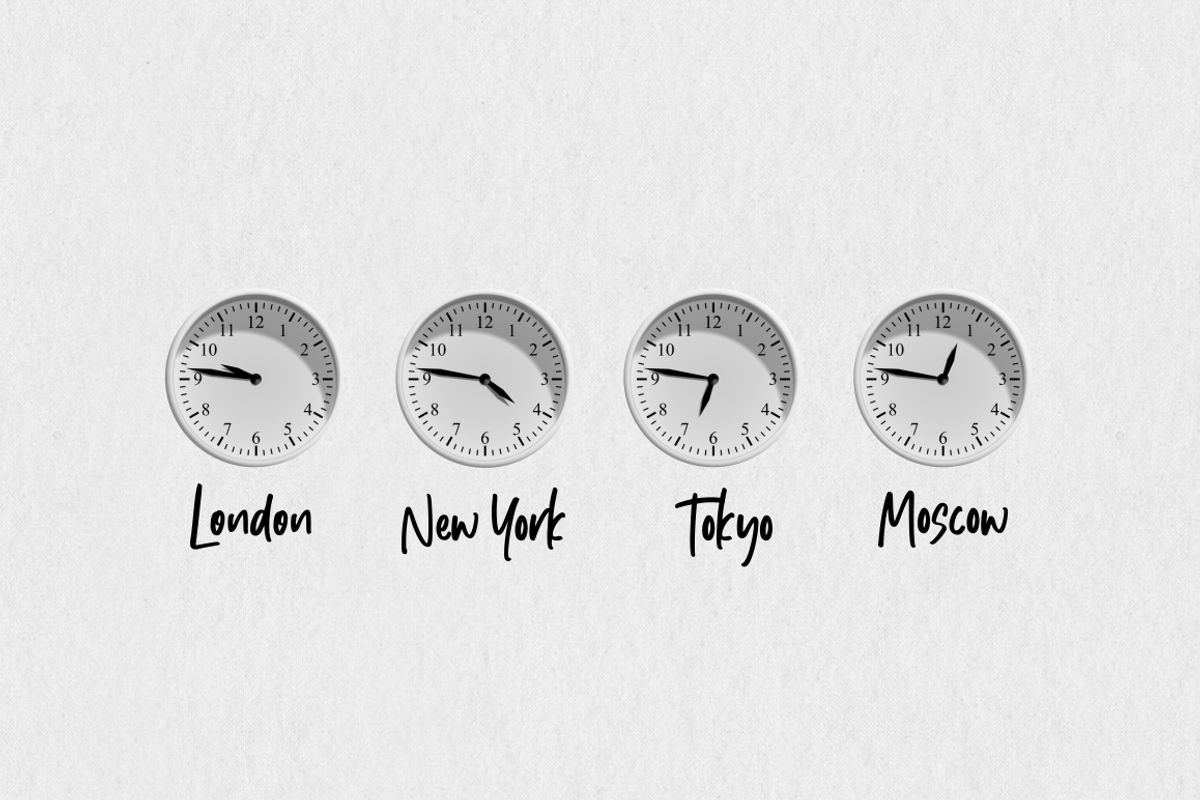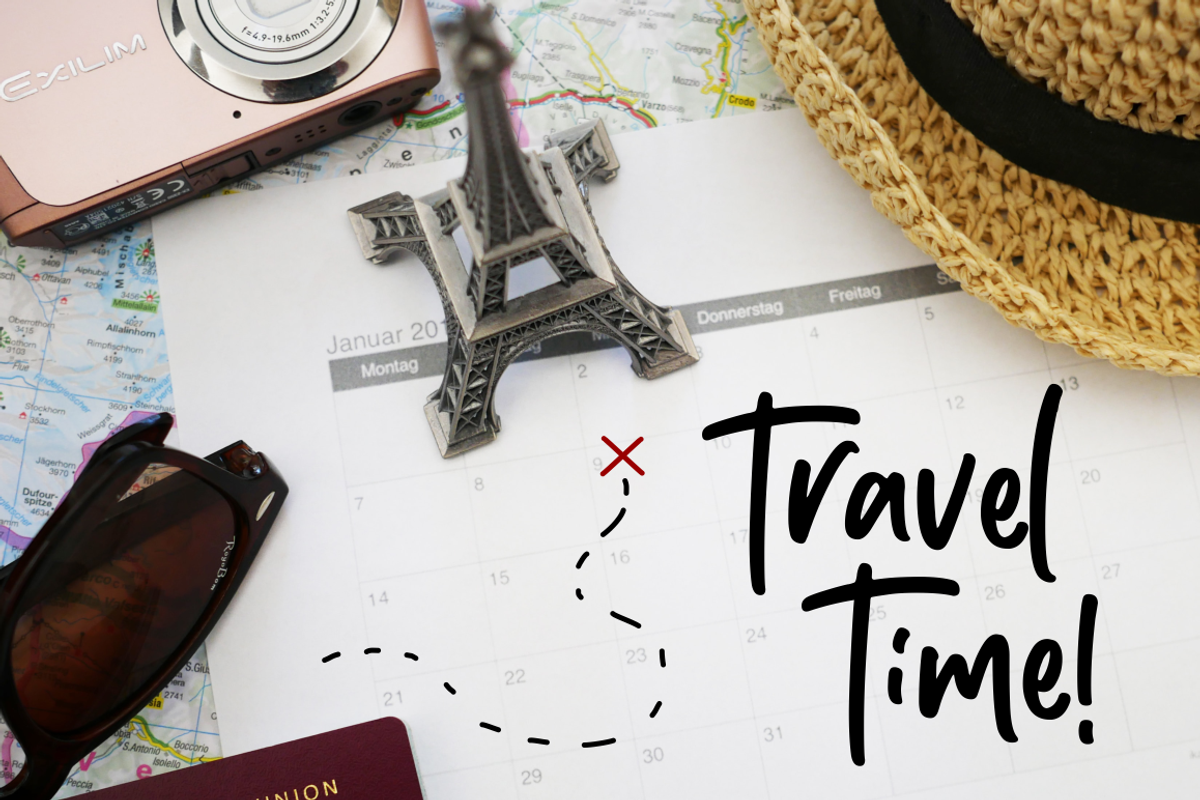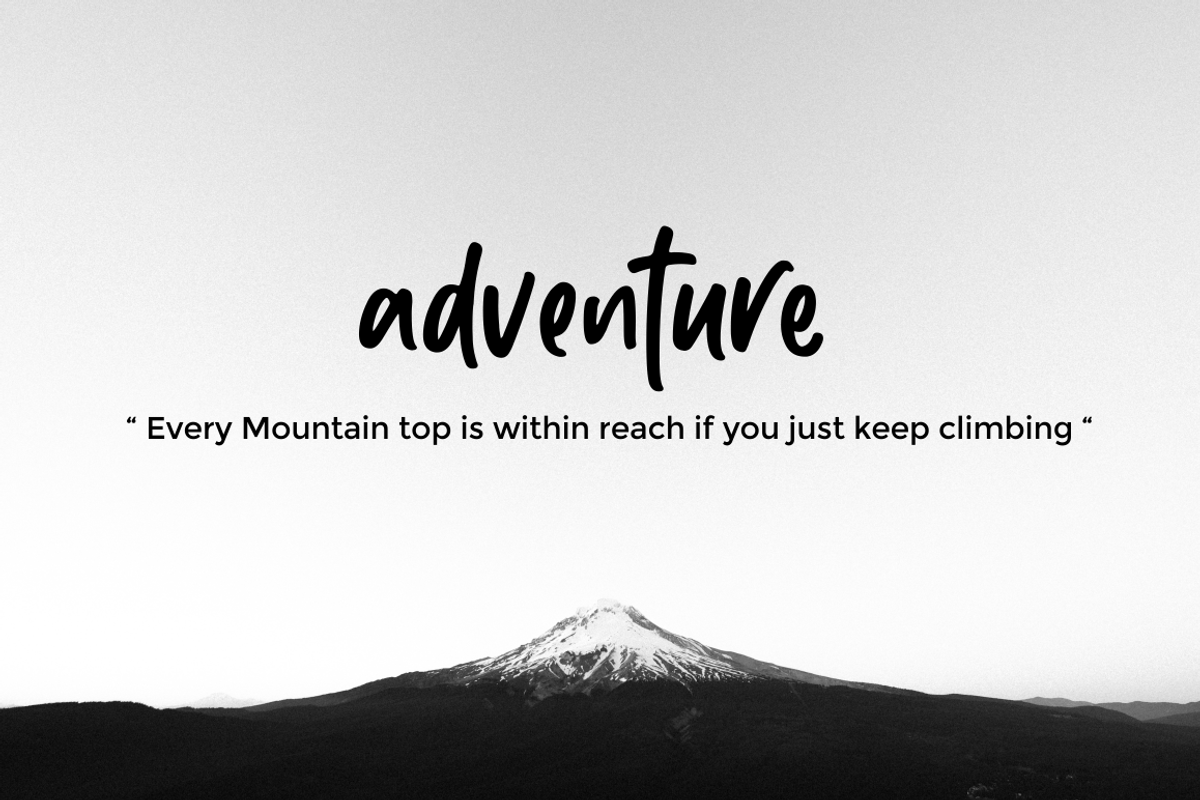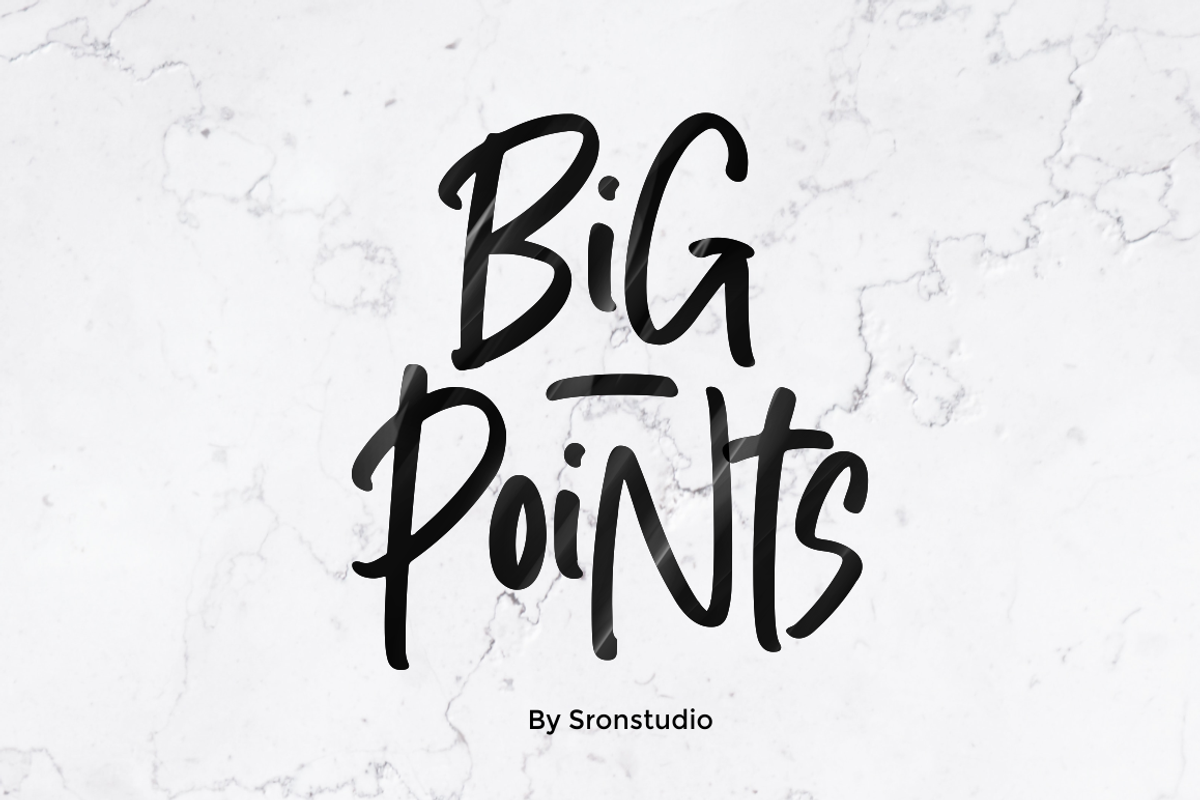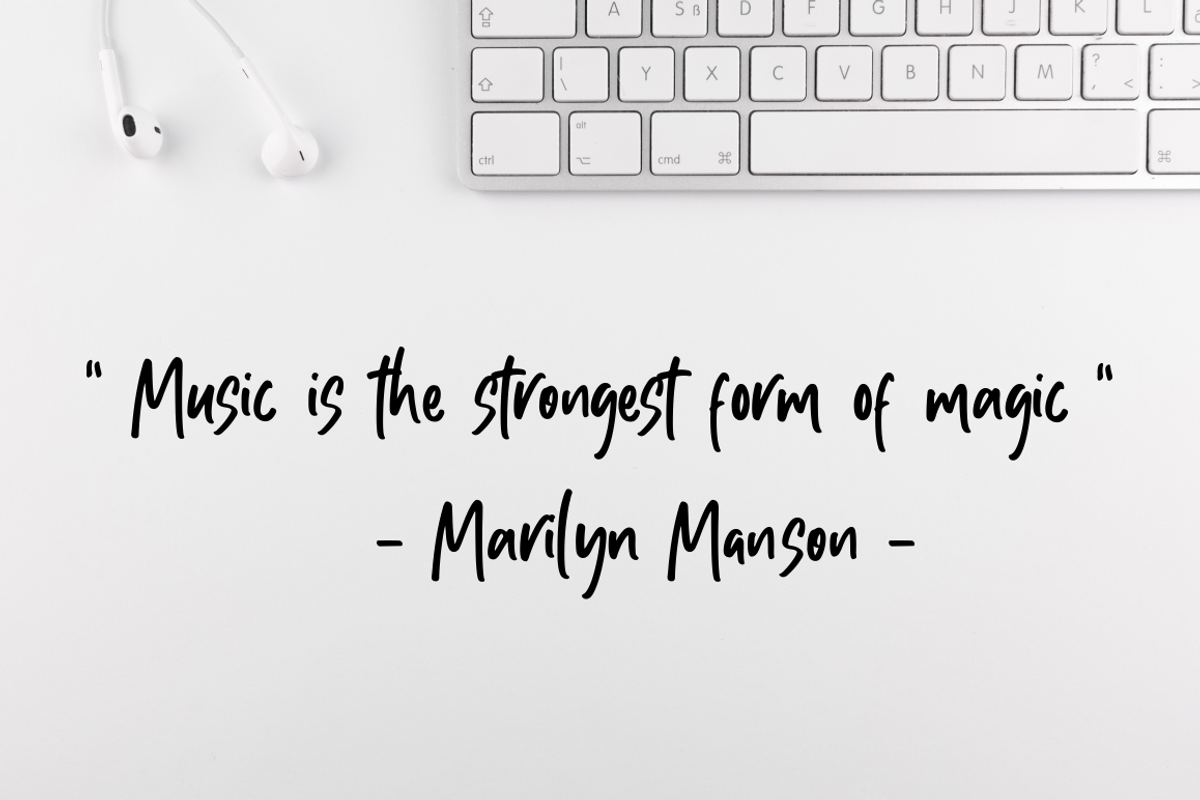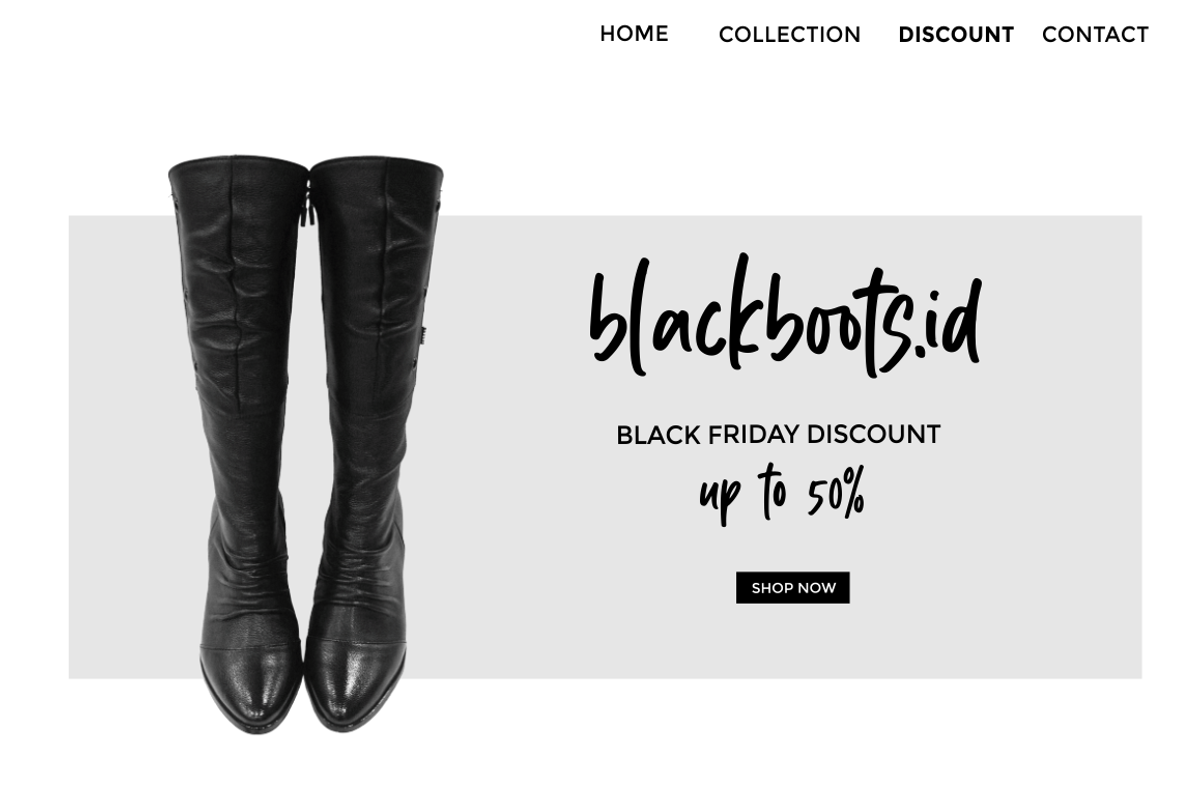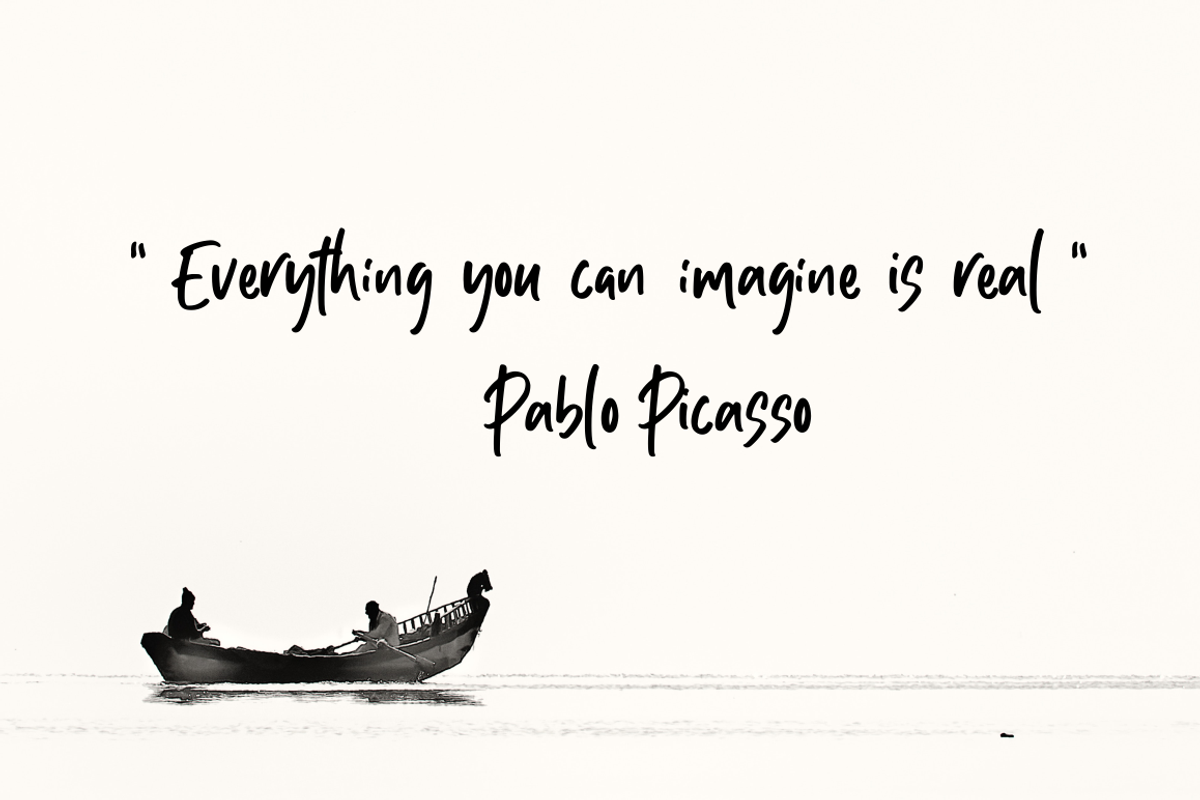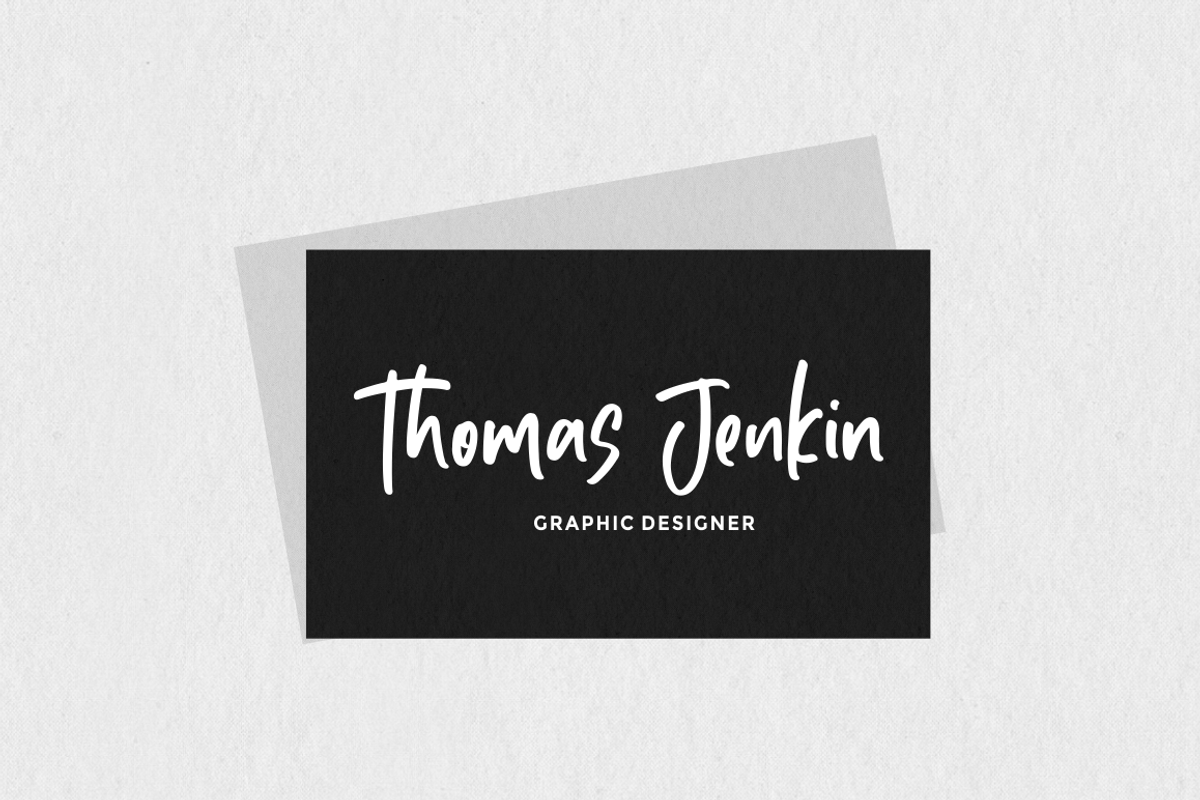
Big Points - Display Font
Introducing Big Points - Display Font
Big Points is a natural handwritten font, this font Is perfect for logo, invitation, stationery, wedding designs, social media posts, advertisements, product packaging, product designs, label, photography, watermark, special events or anything.
Why Big Points - Display Font is worth a look
Big Points - Display Font by Sronstudio fits naturally into Branding, posters, packaging, typography.